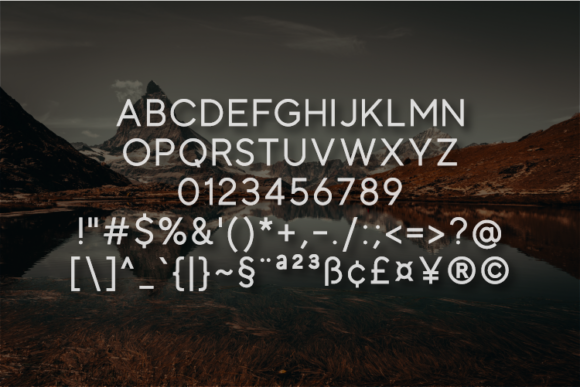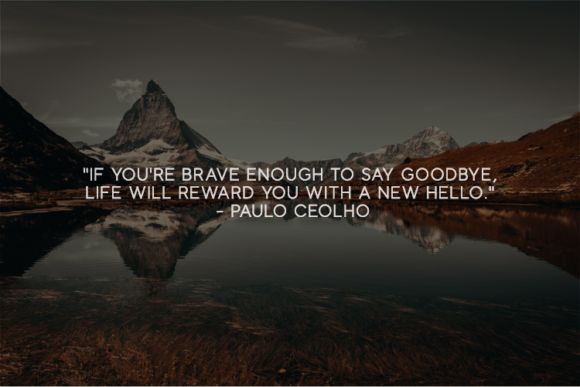
Introduction to Lolle Font
Have you ever stared at a blank page, desperate for the perfect design element to bring your creative project to life? It’s that moment of frustration that we’ve all experienced at some point, but what if we told you that there’s a solution to this problem? Enter the Lolle Font, a minimalist and neat sans serif font that’s about to revolutionize your design process.
As a valuable resource for designers, the Lolle Font is a game-changer. Not only is it free to download, but it also boasts a high-quality design that’s perfect for a wide range of creative projects. With a transparent background, you can easily integrate it into your designs without worrying about distracting backgrounds.
Whether you’re working on a branding project, a website, or a social media campaign, the Lolle Font is an excellent choice. Its clean and modern design makes it incredibly versatile, allowing you to match it with an incredibly large set of projects.
Key Features of Lolle Font
- Features a transparent background, allowing for seamless integration with any design or background.
- Includes a range of sizes and resolutions, from 16px to 64px, and resolutions up to 300 DPI, catering to various design needs.
- Unique and handcrafted design elements, making it stand out from other fonts and adding a personal touch to creative projects.
- Perfect for use in digital design, graphic design, web design, and other creative fields where a high-quality, unique font is required.
Honest Review: Lolle Font
I recently had the opportunity to work with the Lolle Font on a creative project, and I must say it was a great experience. The Lolle Font is a high-quality design resource that offers a unique and stylish look that can elevate any design.
What works well with the Lolle Font is its flexibility and versatility. It comes in a range of weights and styles, making it easy to adapt to different design needs. The transparent background feature also allows for seamless integration with other design elements. ✨
Here are some of the key features that make the Lolle Font stand out:
- Range of weights and styles for flexibility
Overall, I was impressed with the Lolle Font and would definitely recommend it for any design project that requires a high-quality, stylish font. Its flexibility and versatility make it a great addition to any design resource library.
Getting the Most Out of Lolle Font
For optimal results, use Lolle Font with a transparent background to create a clean and modern look. You can also experiment with different font sizes and colors to create a unique design. Lolle Font is a high-quality design resource that can help you take your creative project to the next level.
Lolle Font is a versatile font that can be used for a variety of creative projects, including:
Yes, the Lolle Font is designed to be a high-quality font, suitable for use in various design contexts, including print and digital applications. The font’s high resolution ensures crisp and clear rendering, even at larger font sizes.
Can I customize the Lolle Font to suit my design project?
The Lolle Font is a versatile design resource, allowing for customization through various font editors and design software. You can experiment with different font styles, sizes, and combinations to achieve the desired look for your creative project.